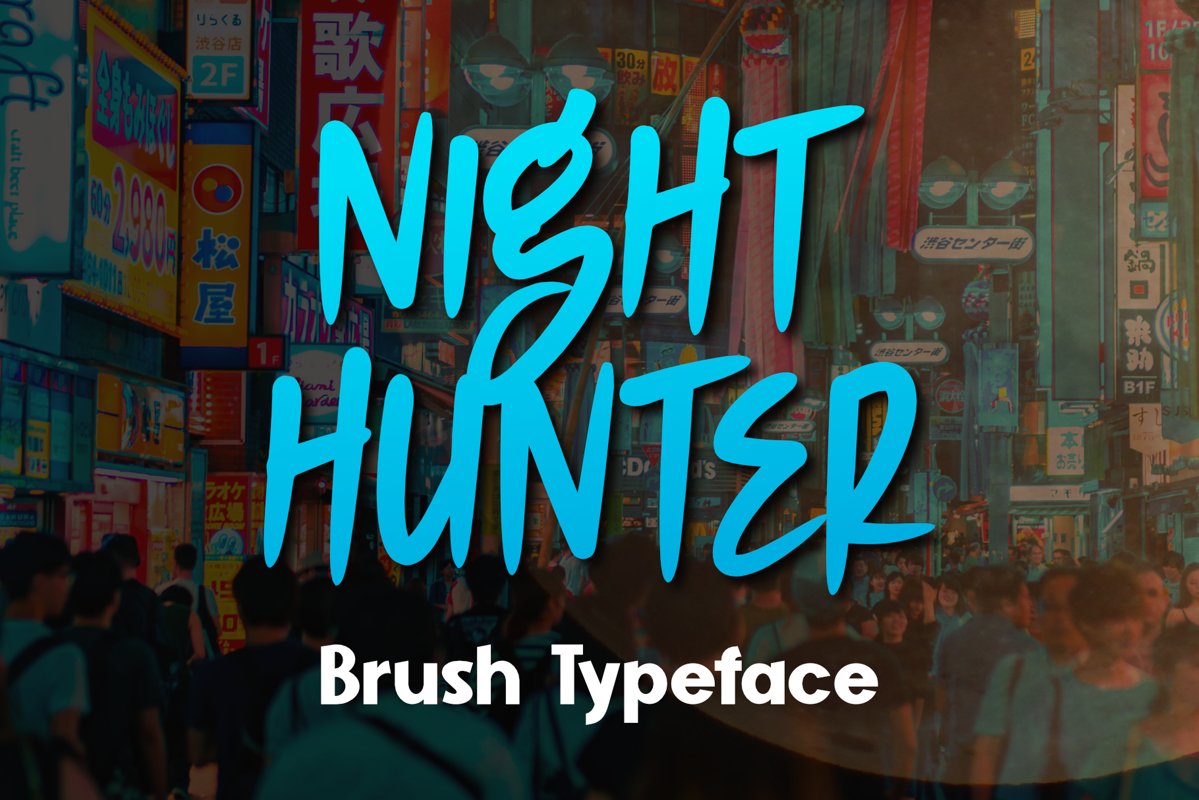
Night Hunter
NIGHT HUNTER
Night Hunter is a font brush that has a cool style. This font is suitable for t-shirt design projects, film titles, social media branding, poster designs and other designs.
This font consists of ALLCAPS with a cool style.